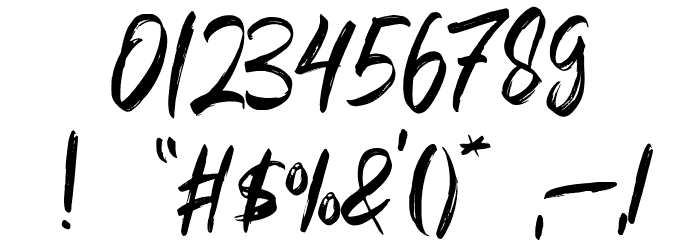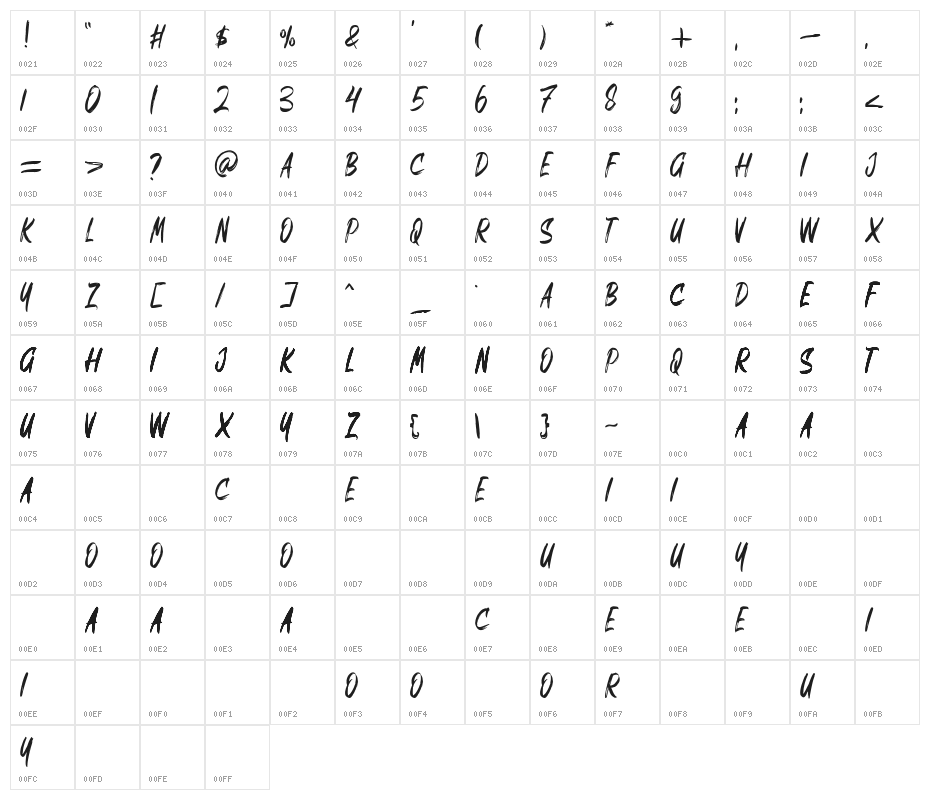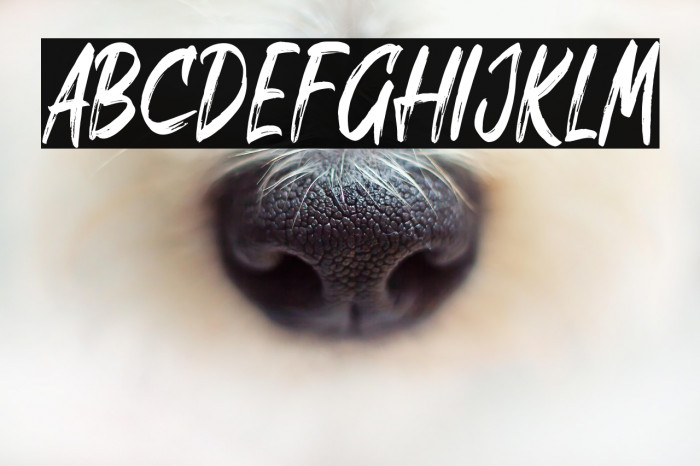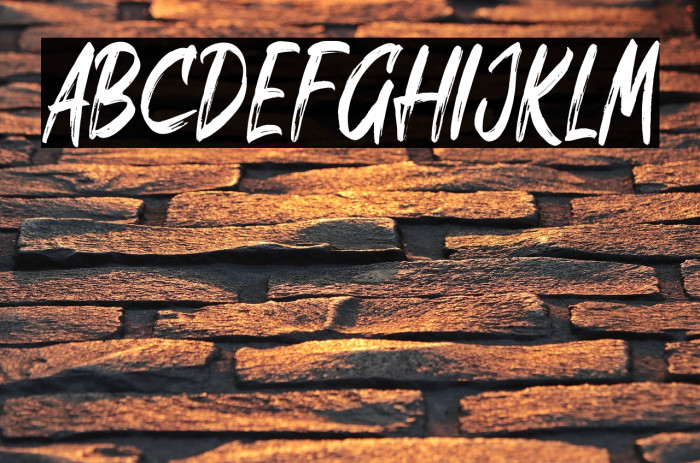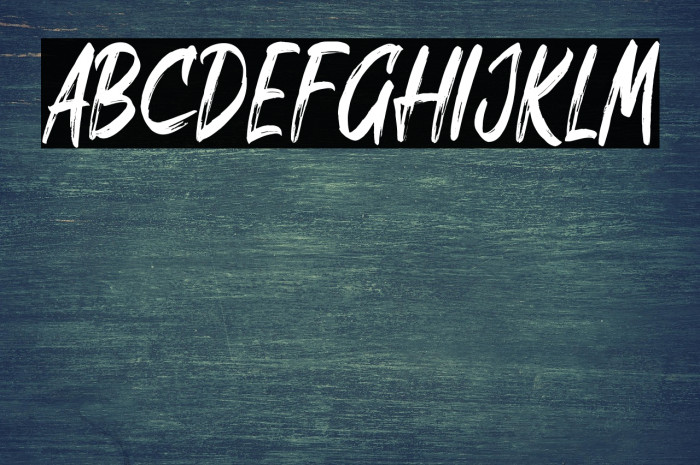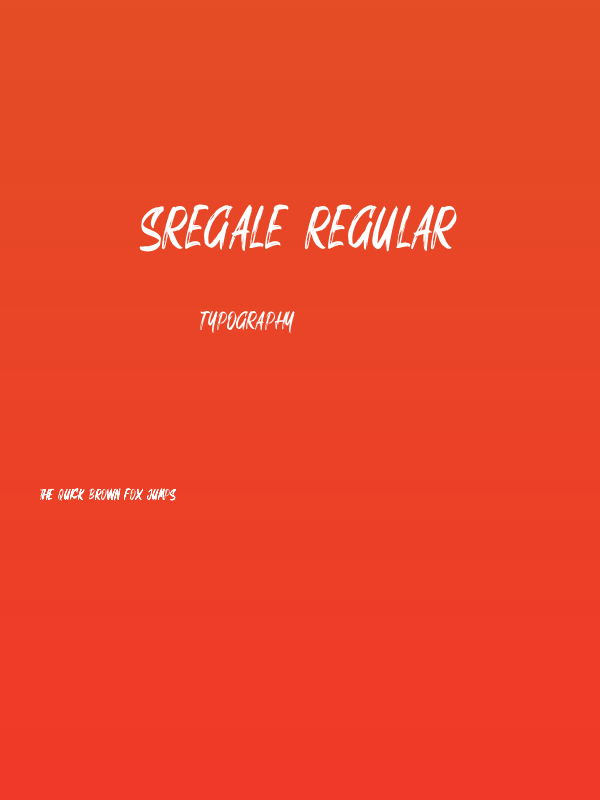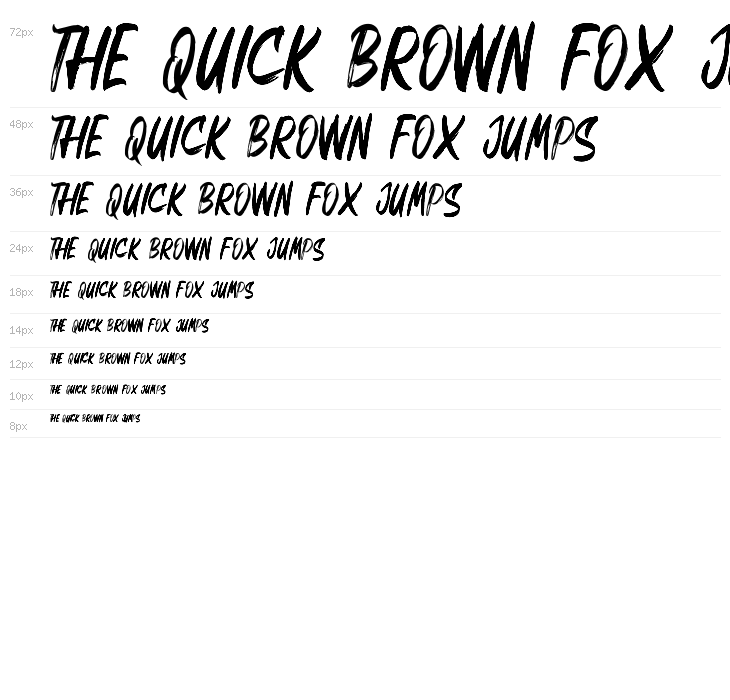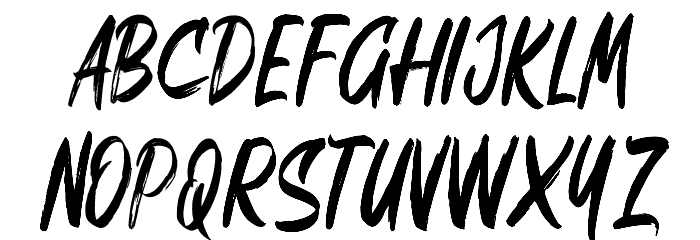
SREGALE Regular Font
SREGALE Regular Description
This font features a bold and dynamic brush script style, characterized by its energetic and fluid strokes. The letters exhibit a hand-painted appearance, with varying thicknesses that add a sense of movement and vitality. The uppercase and lowercase letters maintain a consistent style, with slightly exaggerated curves and angles that enhance its expressive nature. The numbers and special characters are equally dynamic, ensuring a cohesive look across all text elements. This font's artistic flair makes it suitable for projects that require a personal and creative touch.
| Proposed Projects | Ideal for branding, posters, invitations, and any project needing a creative, artistic touch. |